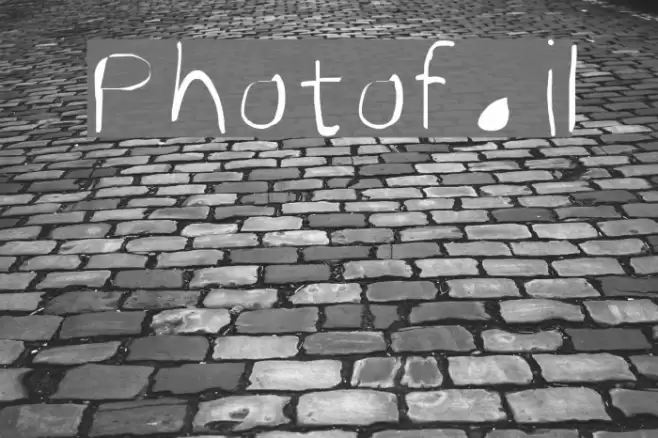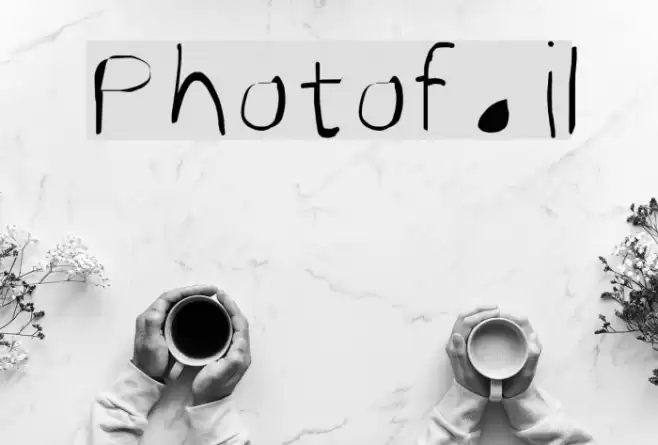
Photofail Font
Photofail Description
This font exhibits a playful and artistic style, characterized by its irregular and hand-drawn appearance. The letters have varying stroke thicknesses, creating a dynamic and lively look. The uppercase and lowercase letters maintain a consistent whimsical theme, with some characters appearing slightly distorted or abstract. The numbers follow the same artistic approach, adding to the font's unique charm. Special characters are creatively designed, enhancing the overall quirky aesthetic. This font is ideal for projects that require a touch of creativity and individuality.
A playful, hand-drawn font with irregular strokes and a whimsical style from Uncategorized fonts.
- Proposed Projects: Ideal for children's books, creative posters, artistic branding, and unique invitations.
- Use Case: Logos, Posters, Creative Projects